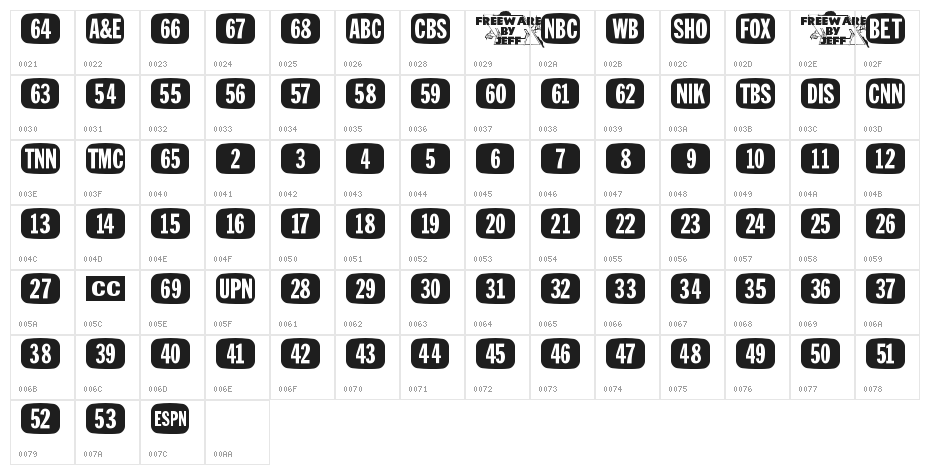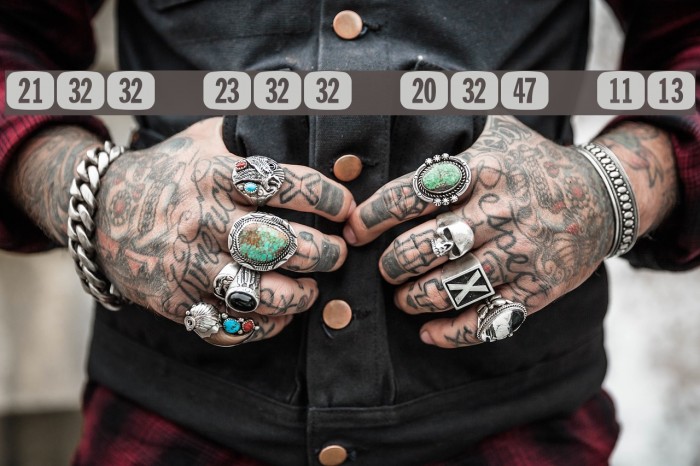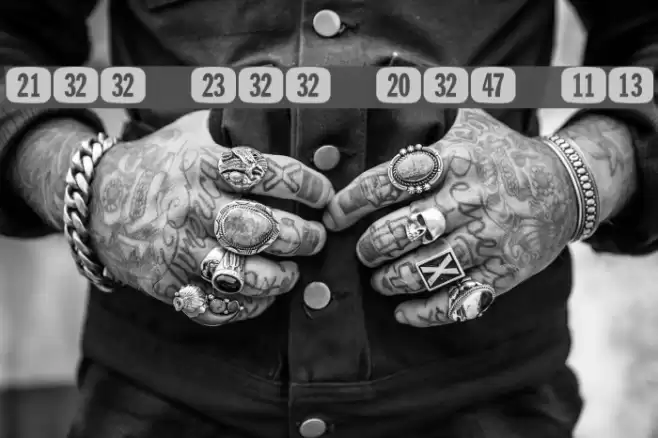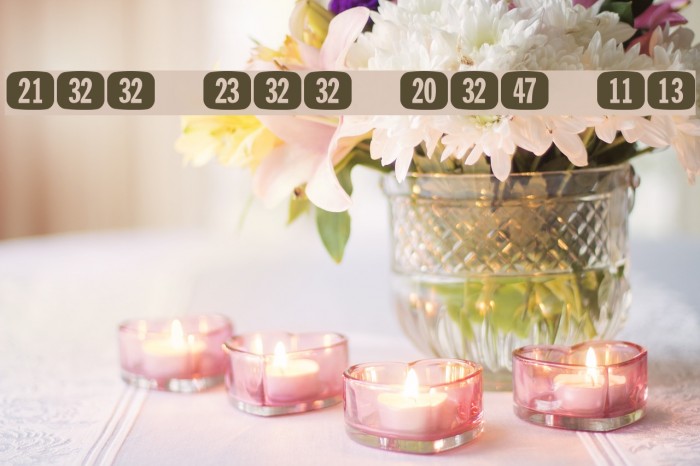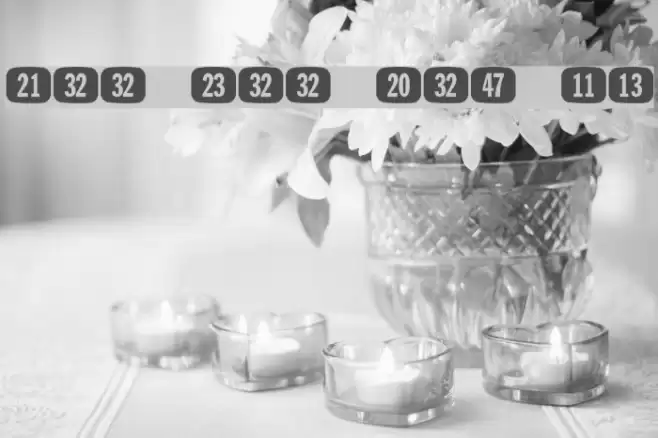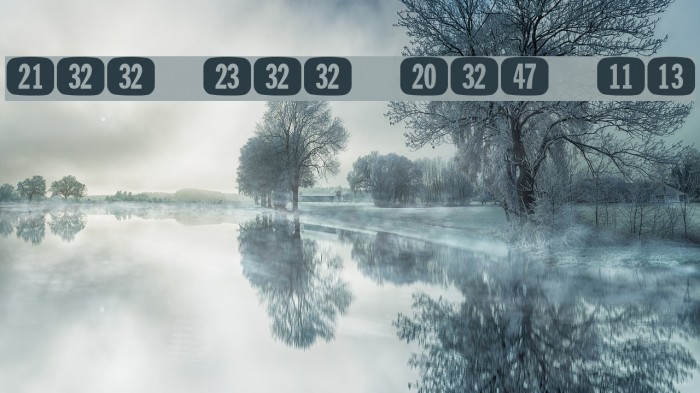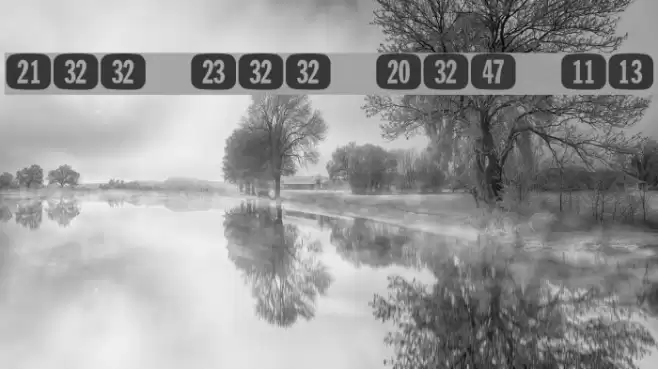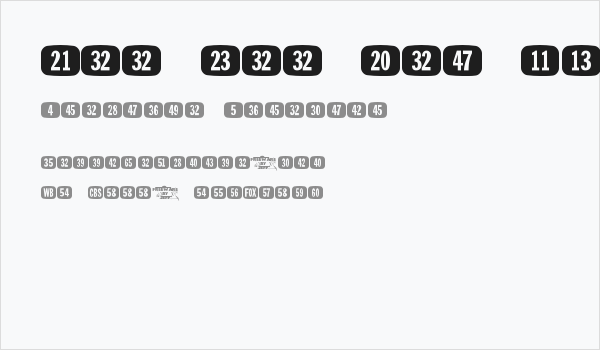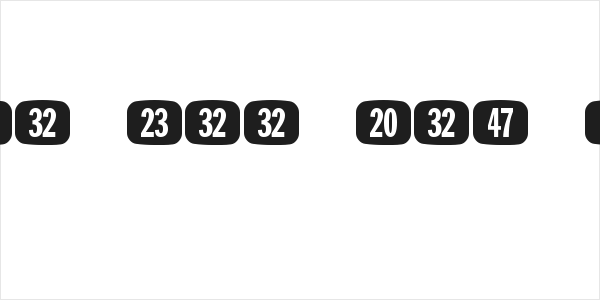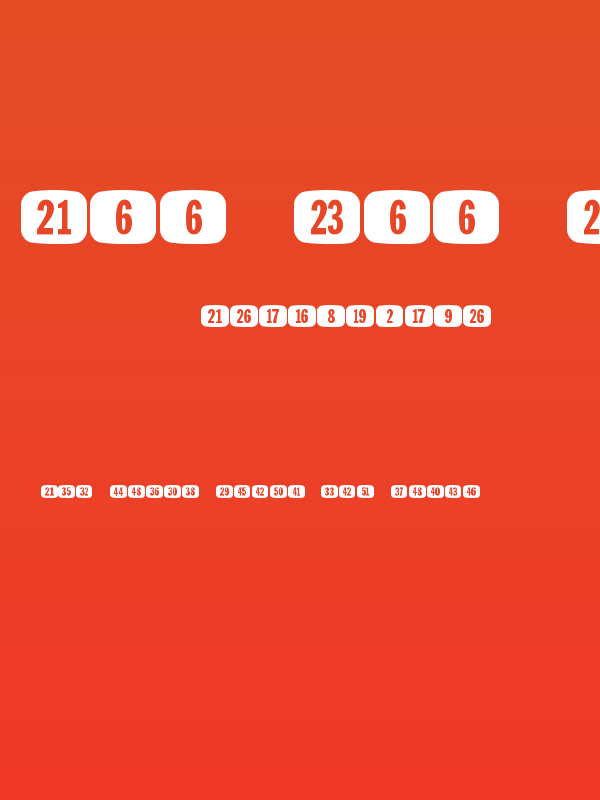
Tee Vee Set JL Font
Tee Vee Set JL Description
This font features bold, rounded characters enclosed in rectangular boxes, reminiscent of vintage television channel numbers. The numbers are uniformly styled with a strong, consistent weight, giving them a robust and impactful appearance. The enclosed design adds a unique flair, making each character stand out distinctly. The font is clearly designed for display purposes, with a nostalgic touch that evokes memories of classic TV sets. Its boldness and clarity make it highly legible, even at smaller sizes, while the enclosed style adds a decorative element that enhances its visual appeal.
| Proposed Projects | Ideal for retro-themed designs, TV show promotions, vintage posters, or any project requiring a nostalgic touch. |